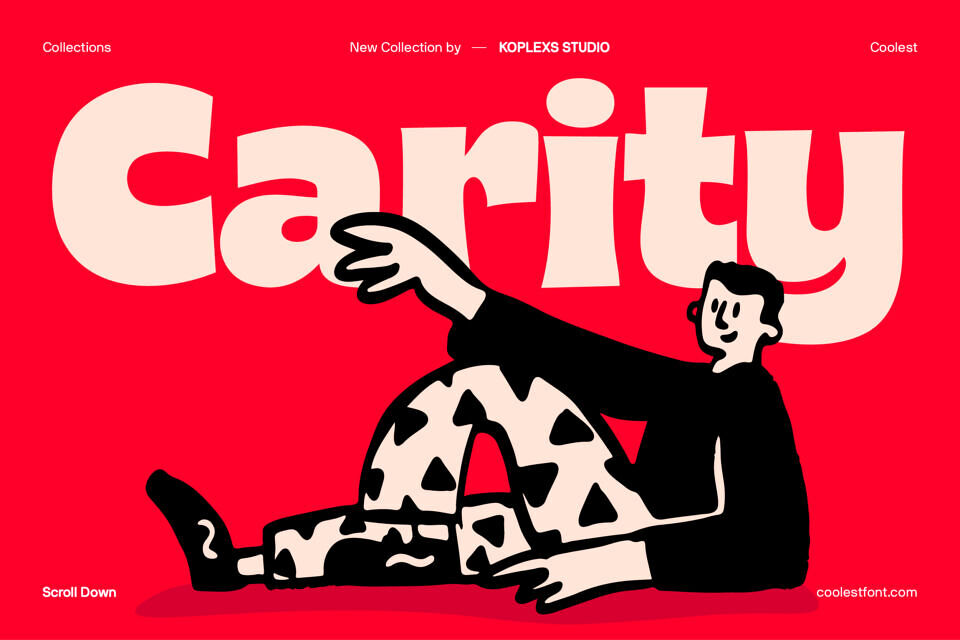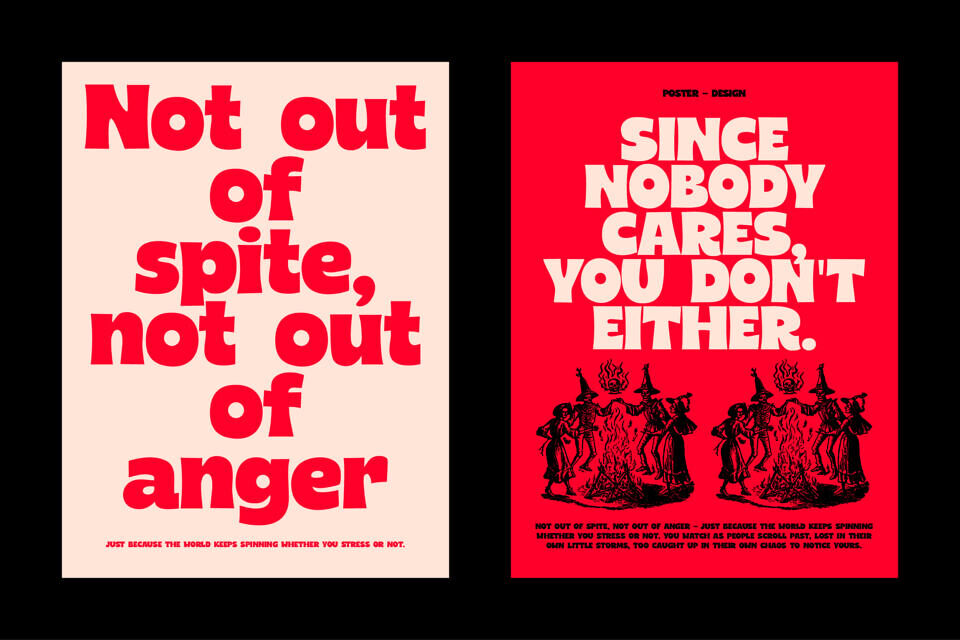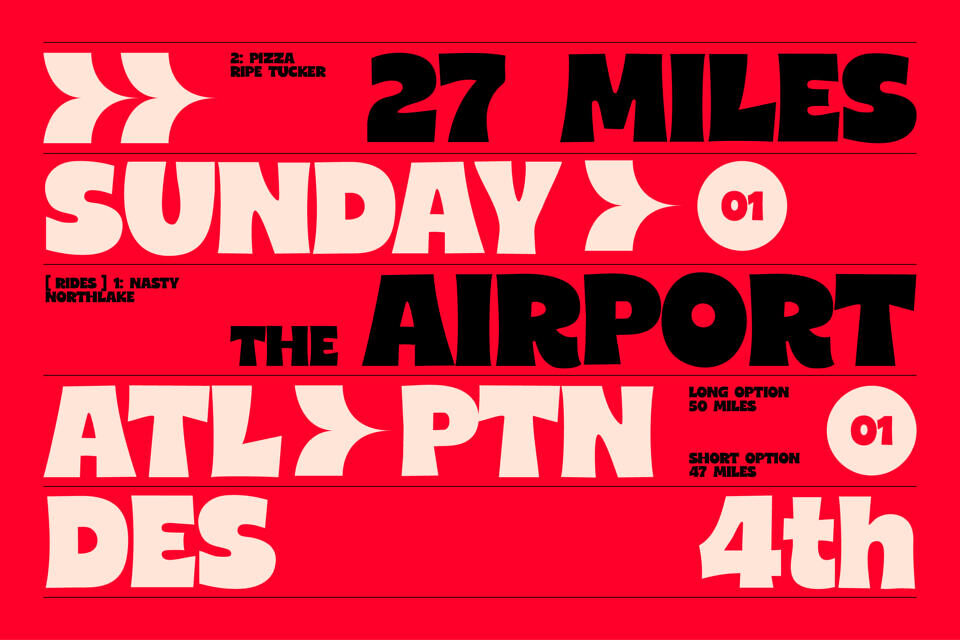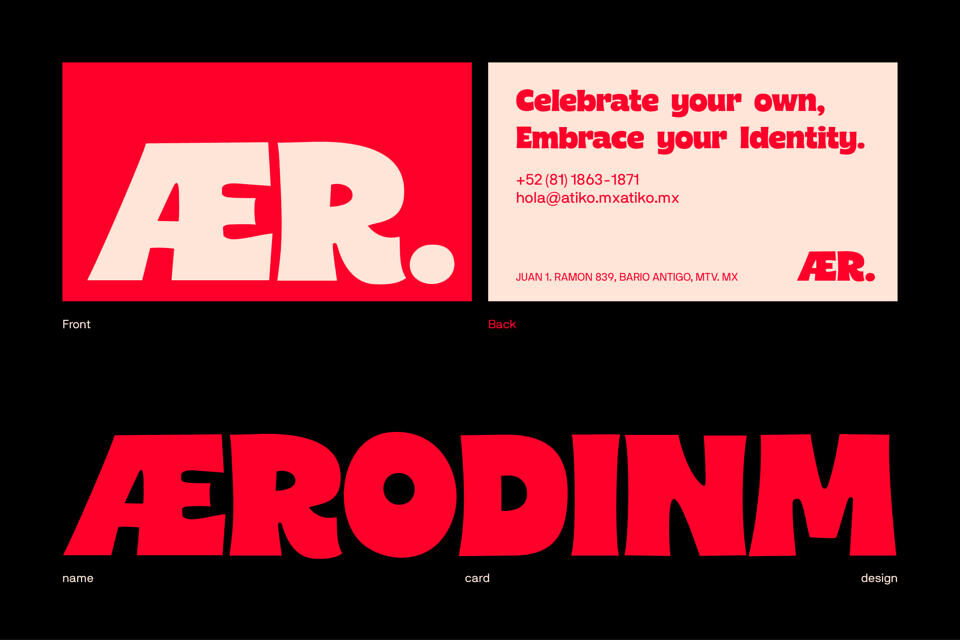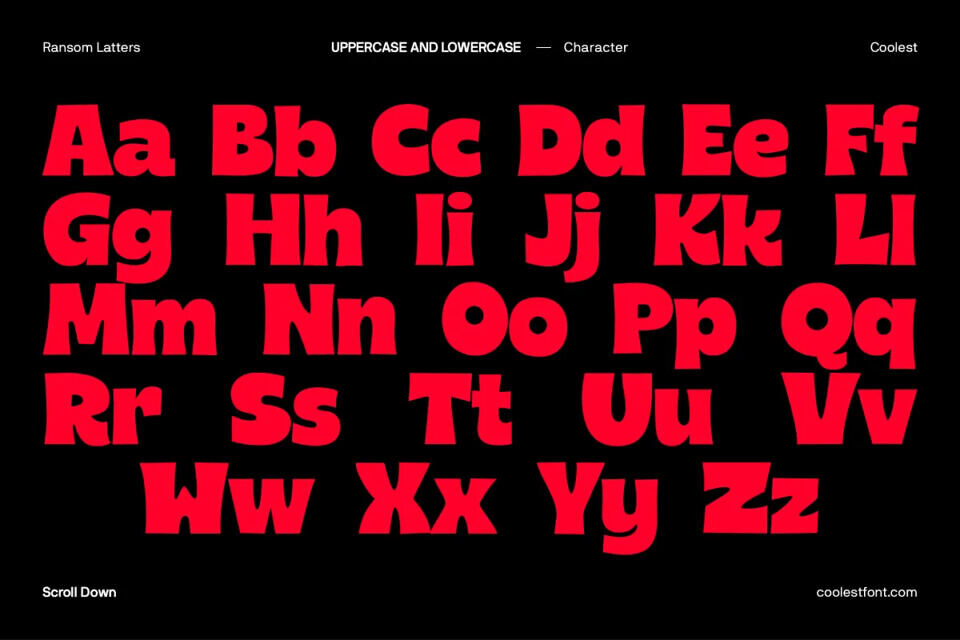
Carity Font
Carity is a bold font with a playful and confident personality that brings a fresh visual identity to any modern project. This display font is designed in chunky fonts style, offering expressive curves, dynamic shapes, and a cool font character that instantly grabs attention. As a powerful branding font, Carity is crafted to deliver a strong presence for designers who want to make their work unforgettable.
Carity Font works beautifully as a headline font for magazines and websites, a logo font for distinctive brand identities, a poster font for impactful promotional visuals, and a cover font for book or album designs. With its thick forms and unique silhouettes, this modern font brings energy and charm to both digital and print media.